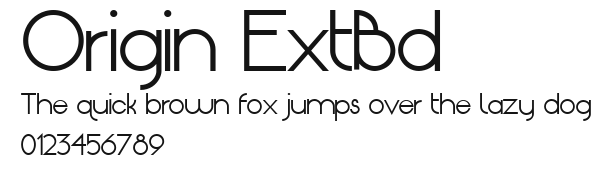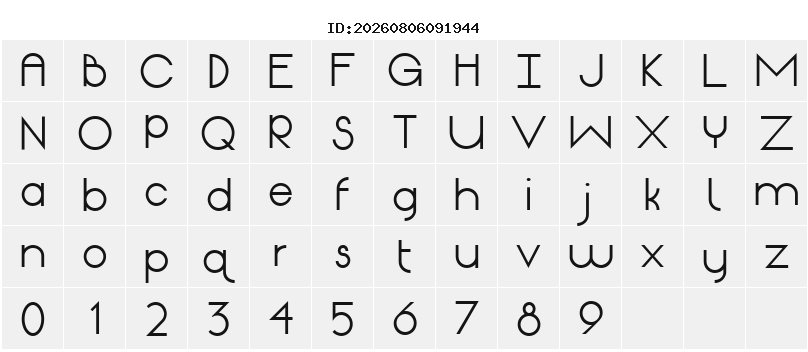
• Font Name: Origin ExtBd
• Font Style: Extra Bold
• Full Font Name: Origin Extra Bold
• Designer: TitanVex
Origin ExtBd.ttf is a modern, elegant sans-serif font designed for ultimate readability and visual harmony. Perfect for branding, headlines, web design, and print materials.